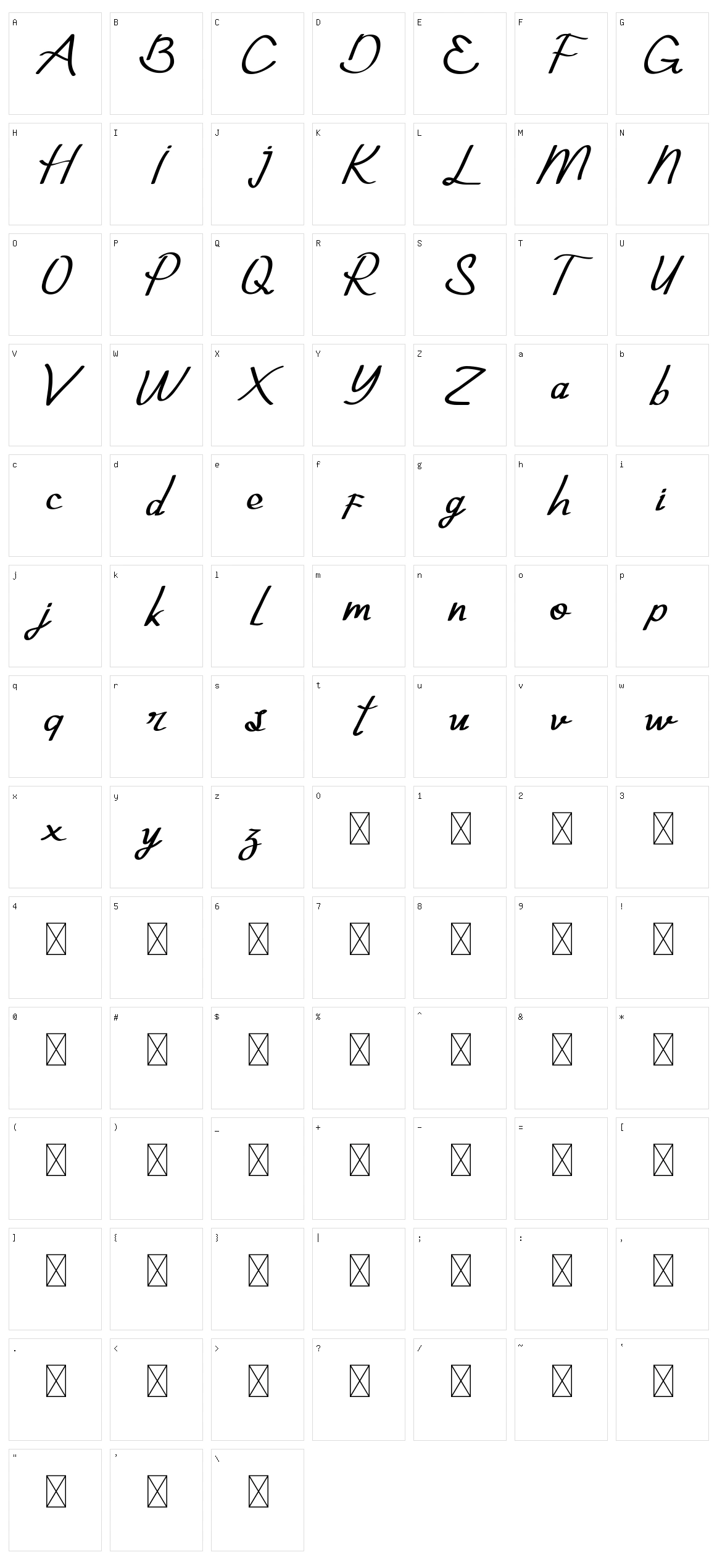
The free font Exninja Caligraphy is carefully designed by Edric Studio, showcasing a thoughtful balance of creativity and usability and falls under the Script font style. When you download the ZIP file, it contains only 12.68 KB of font files, making it lightweight and quick to download. Please review the license details below to understand permitted usage and distribution rights. If license information is not available, we recommend using this font for personal projects only or contacting the author directly for commercial usage permissions.